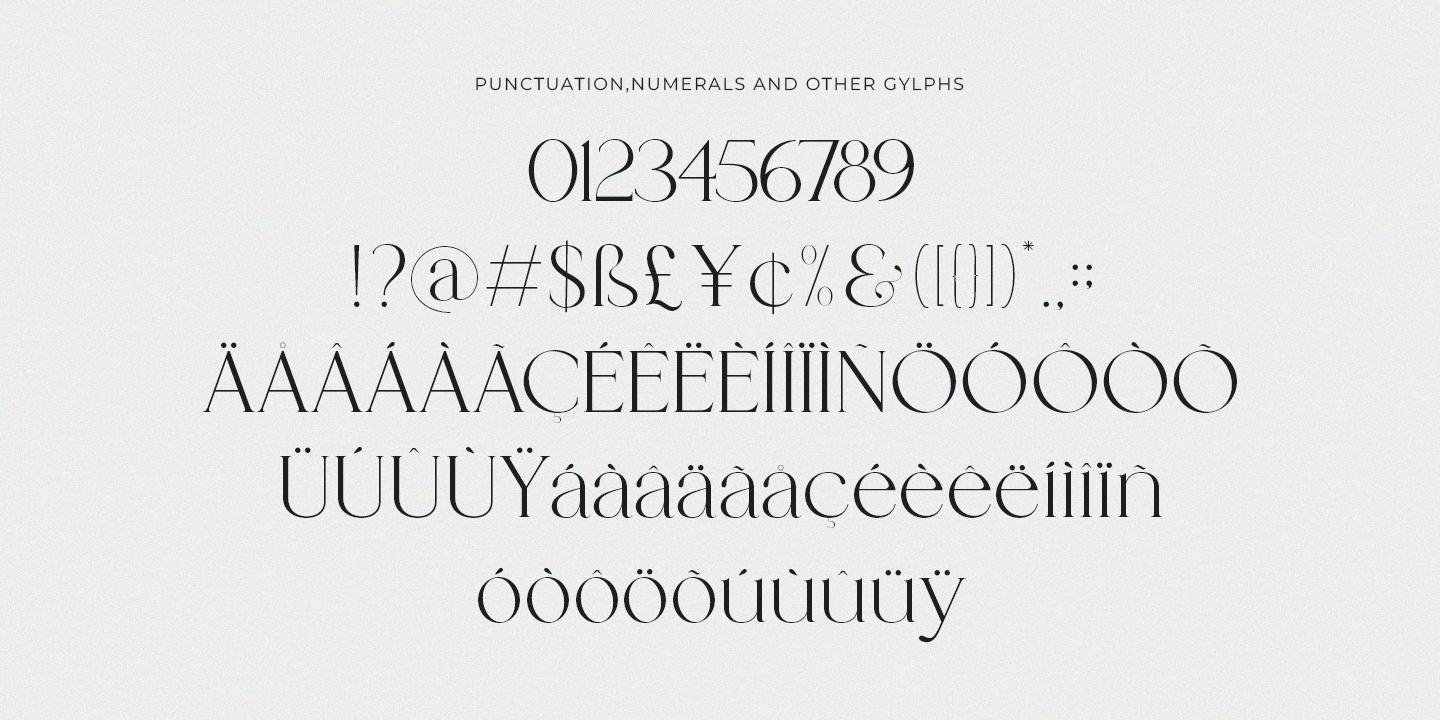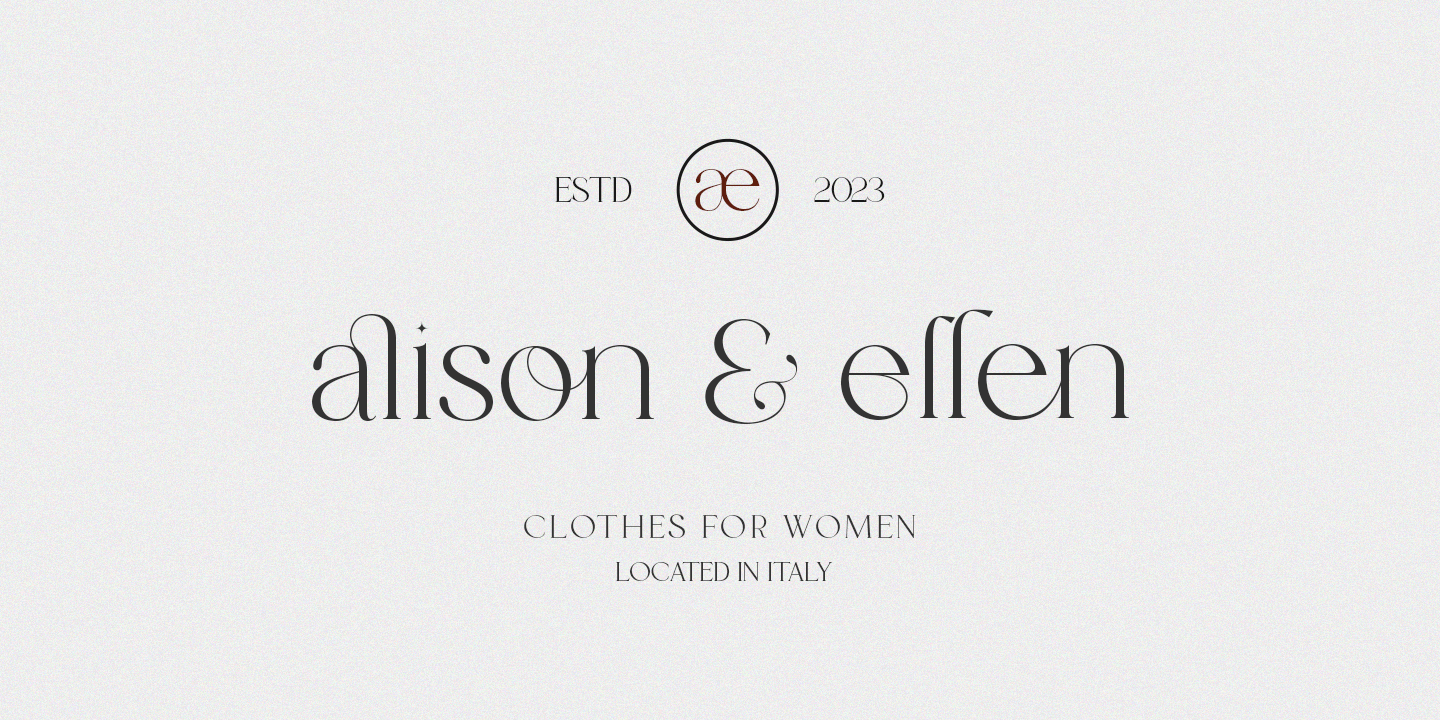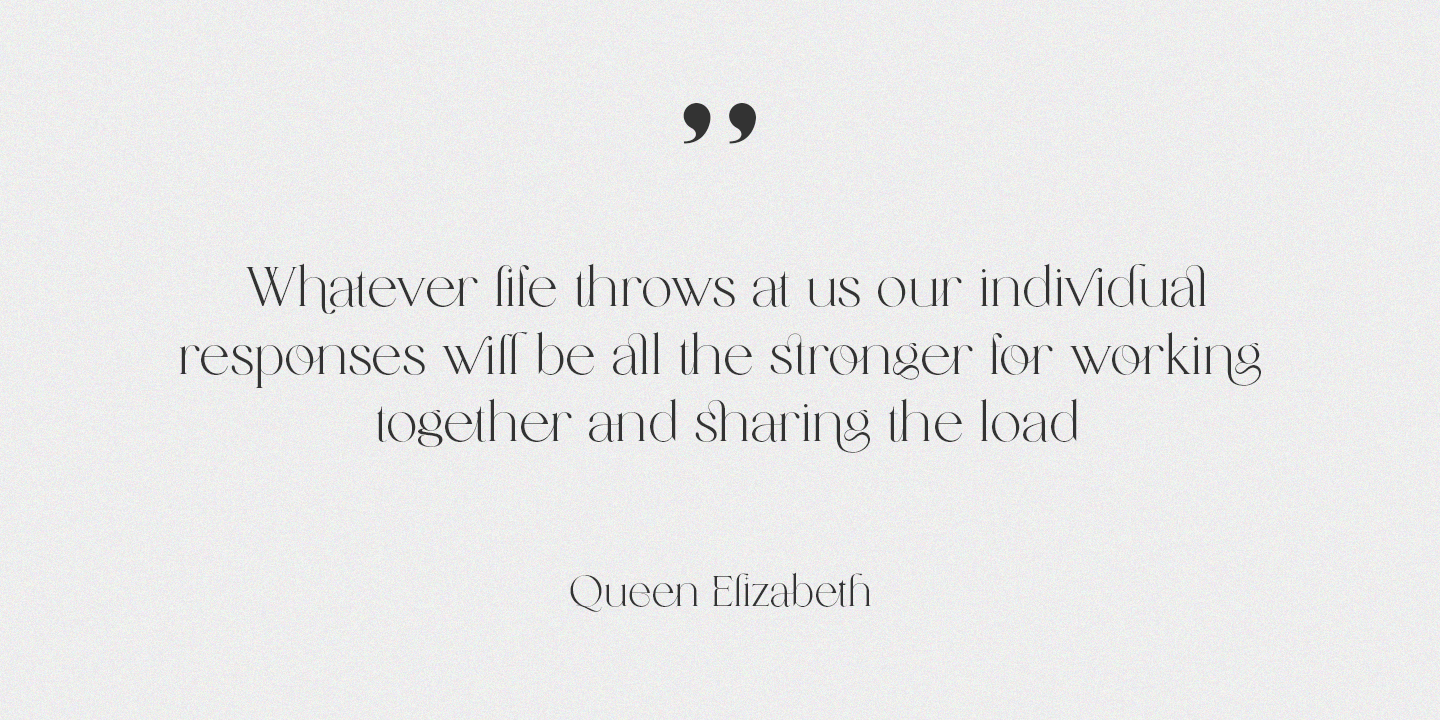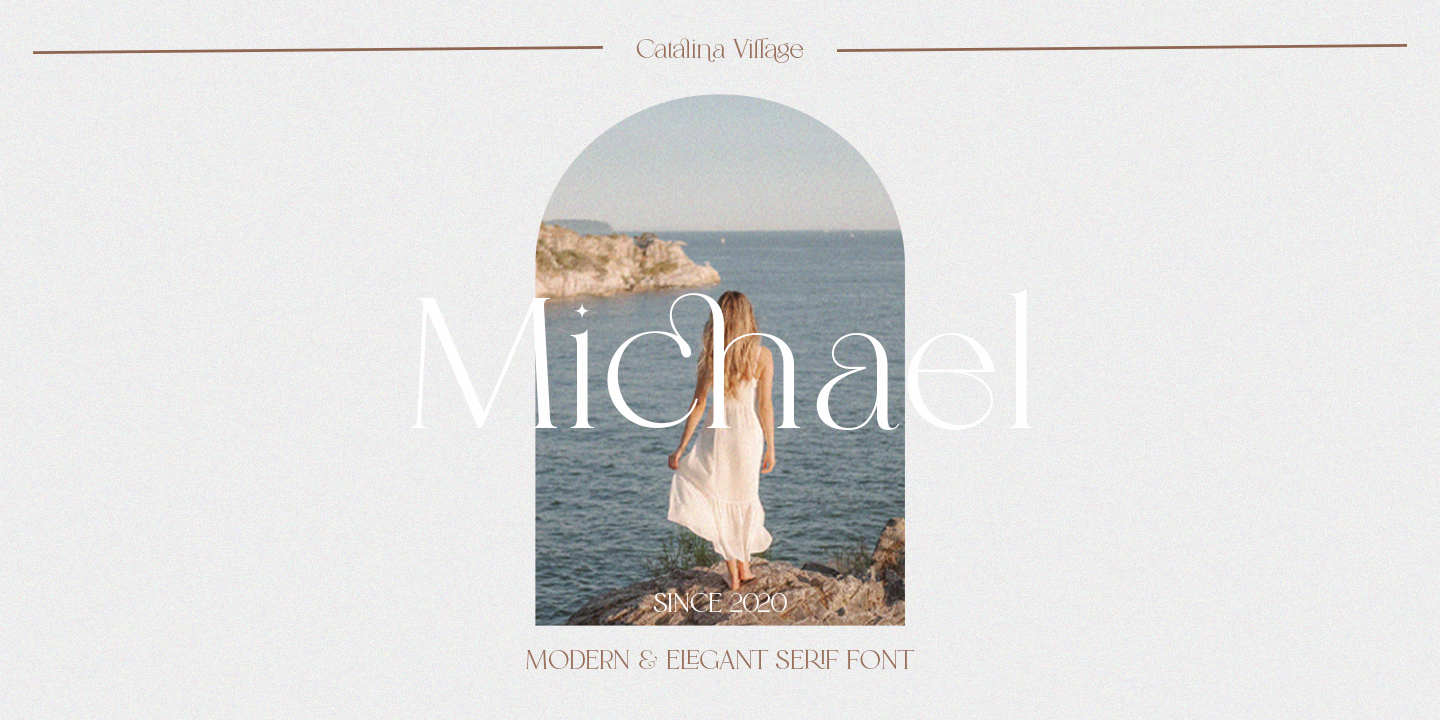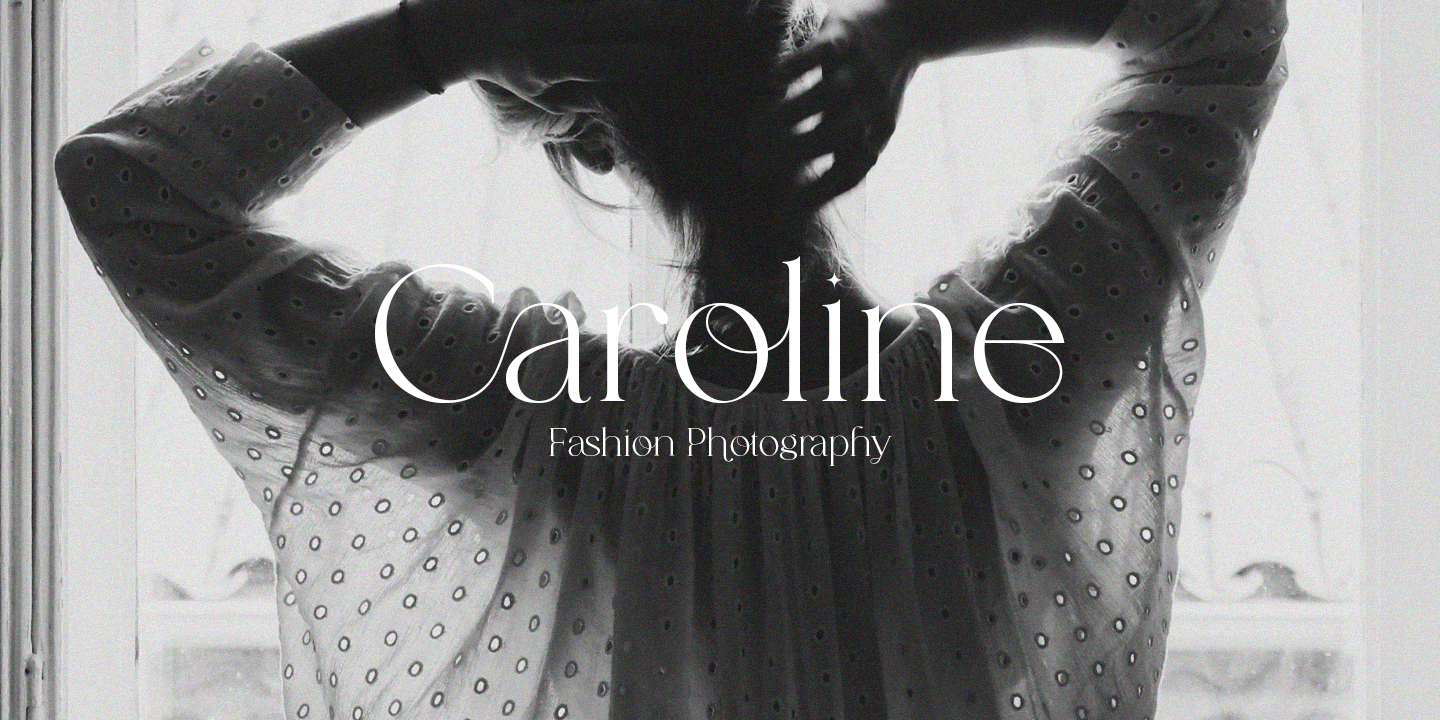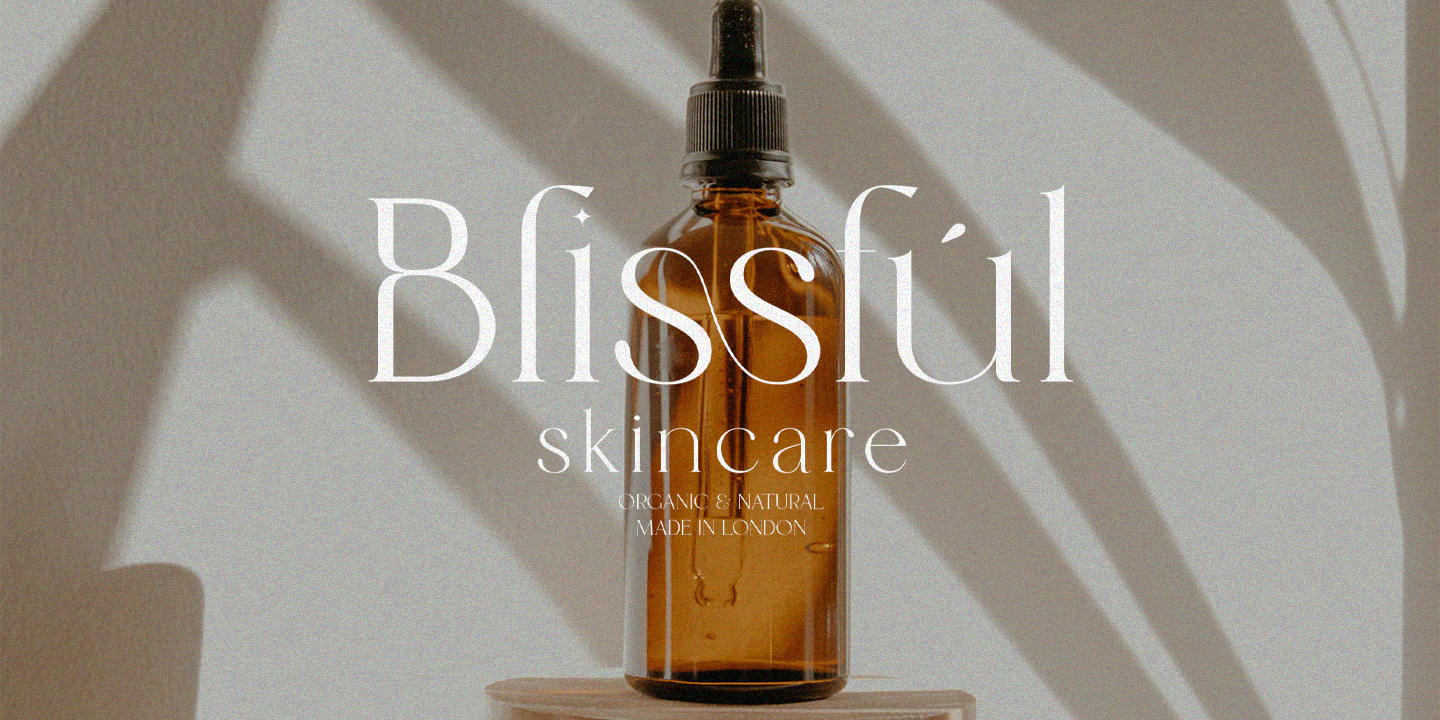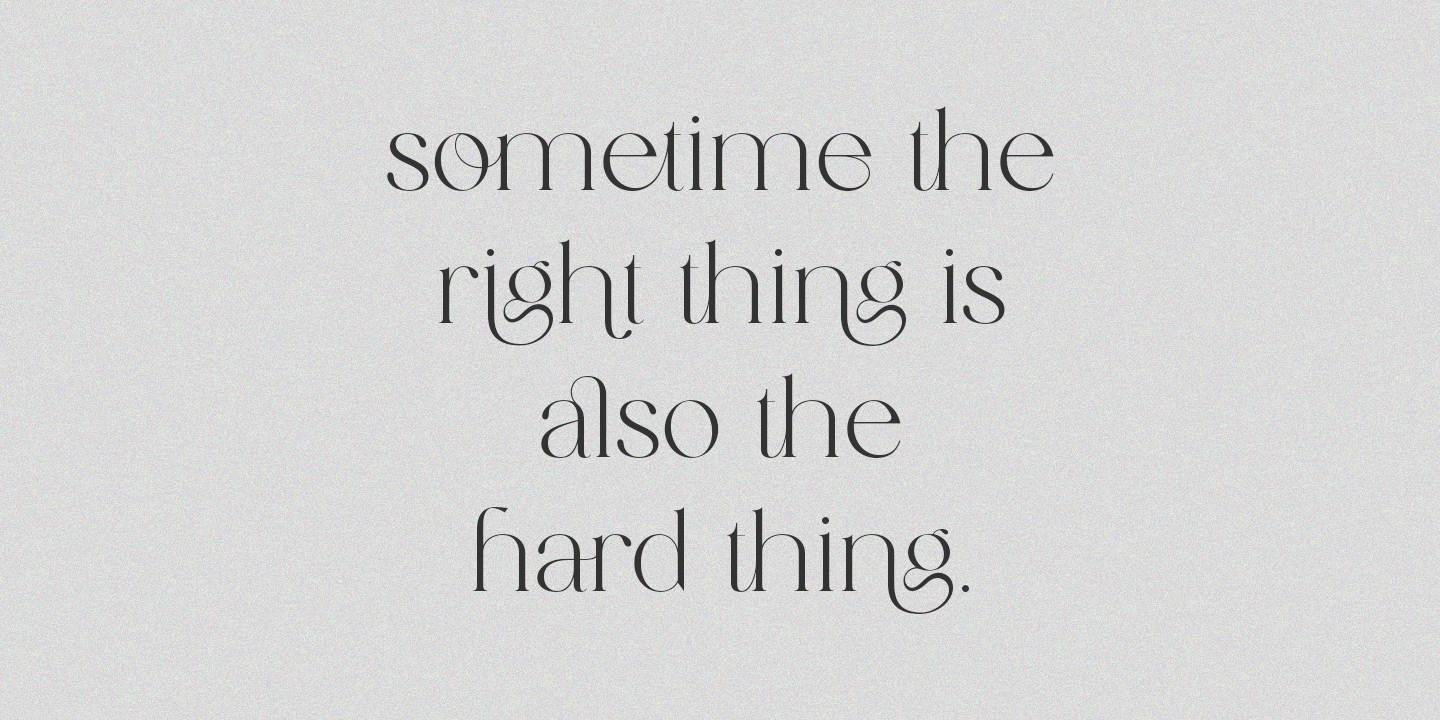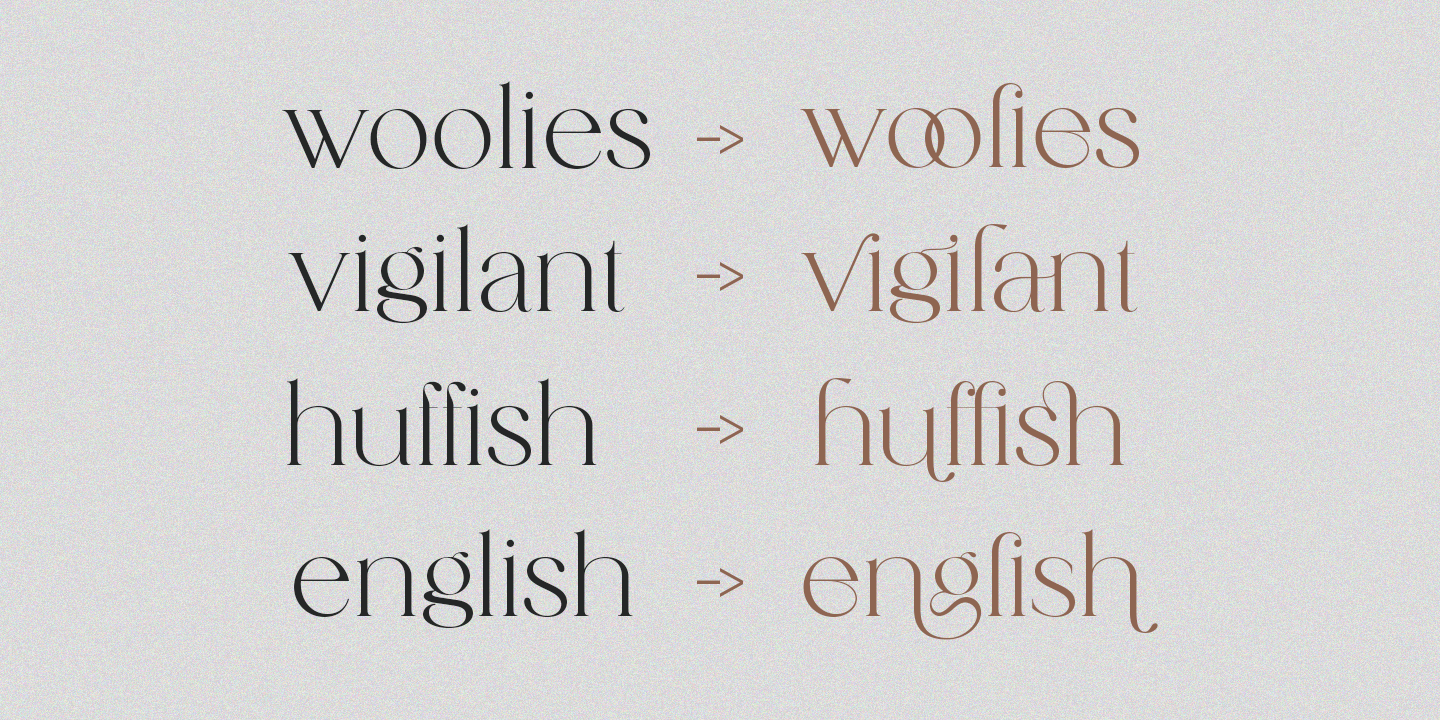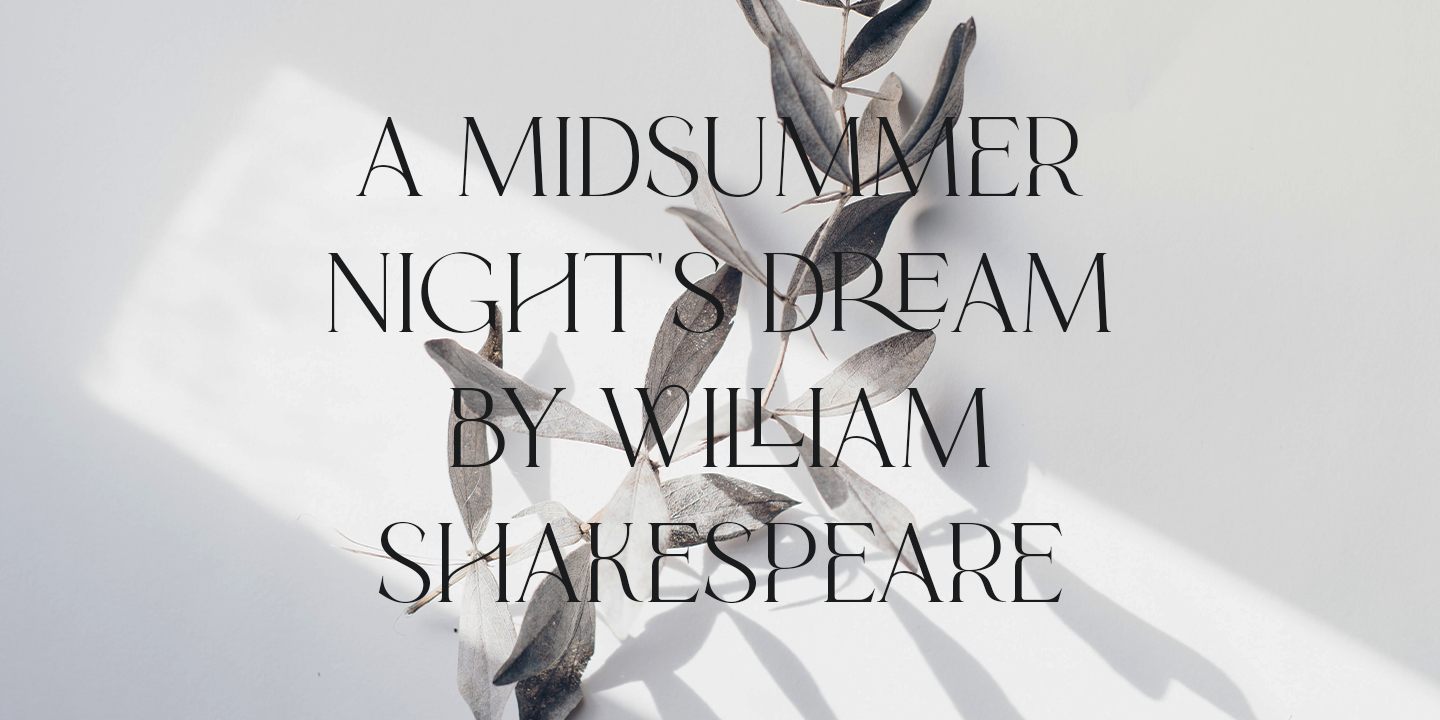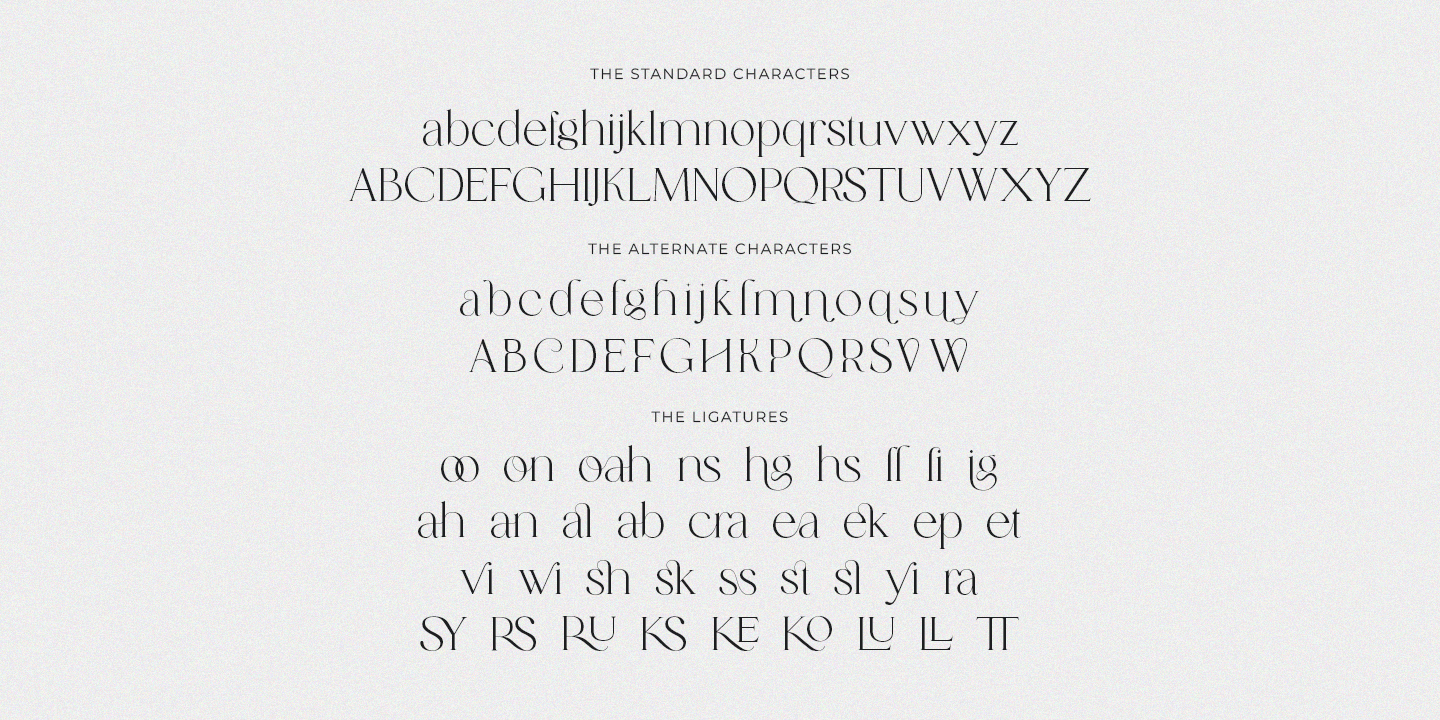
Catalina by Dealita Studio is an elegant serif font designed for sophistication and timeless beauty. With its graceful curves, decorative details, and stylish ligatures, Catalina is perfect for romantic branding, wedding invitations, luxury labels, and editorial design that demands a touch of class.
Ideal for beauty brands, bridal logos, and high-end packaging, Catalina adds a hand-crafted elegance that stands out in any creative project. Its authentic calligraphy-inspired style makes it ideal for logos, quotes, social media graphics, and print materials that want to feel personal and expressive.
Key features:
• Elegant serif with beautiful ligatures and alternates
Catalina pairs beautifully with minimalist sans-serifs or clean serifs for a balanced, modern contrast. Use it to create stunning designs for:
• Wedding and bridal branding
• Beauty and skincare labels
• Fashion boutique logos
• Hand-lettered quotes and social media posts
• Elegant packaging and greeting cards
Whether you’re a graphic designer, calligrapher, or small business owner, Catalina gives your work a timeless, hand-crafted feel that resonates with authenticity and elegance.
Elevate your typography — with Catalina, the elegant serif font where every letter tells a story.